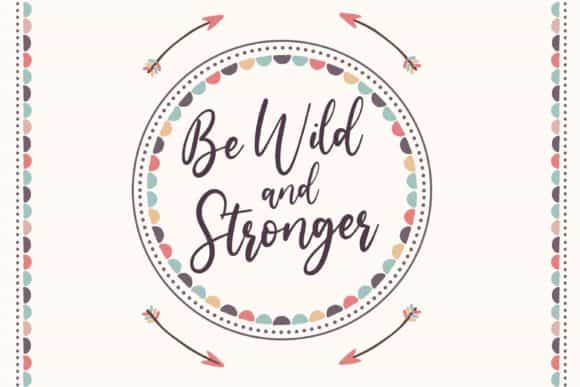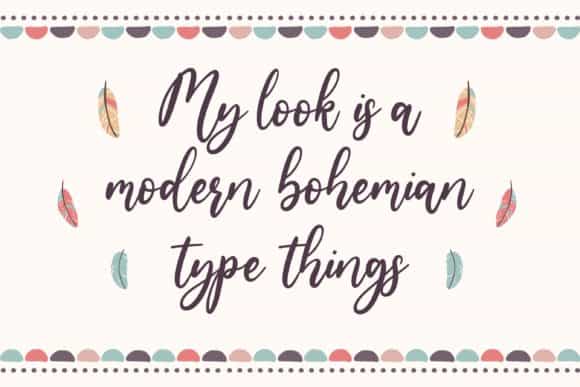
Bowhead modern calligraphy handwritten script font is written individually, with a smooth round strokes to give the font a very unique and not resembled font. Good for your lettering works and logos.